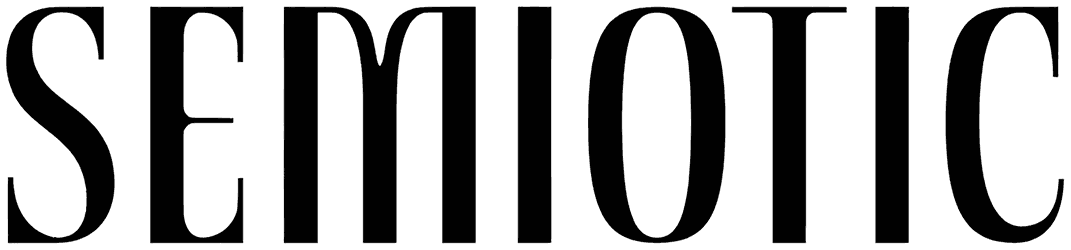
Semiotic Font
Sit tight and go for experience a modern mixture of both uppercase and lowercase letters and make a nice result that speaks for itself. The Semiotic font comes to help you find yourself on a winning streak in the typography field.
Right now, embrace the chic ambiance of this soft serif font on your plain lettering. Judging by the preview work before your eyes, you could say it’s nothing but a winning assortment!